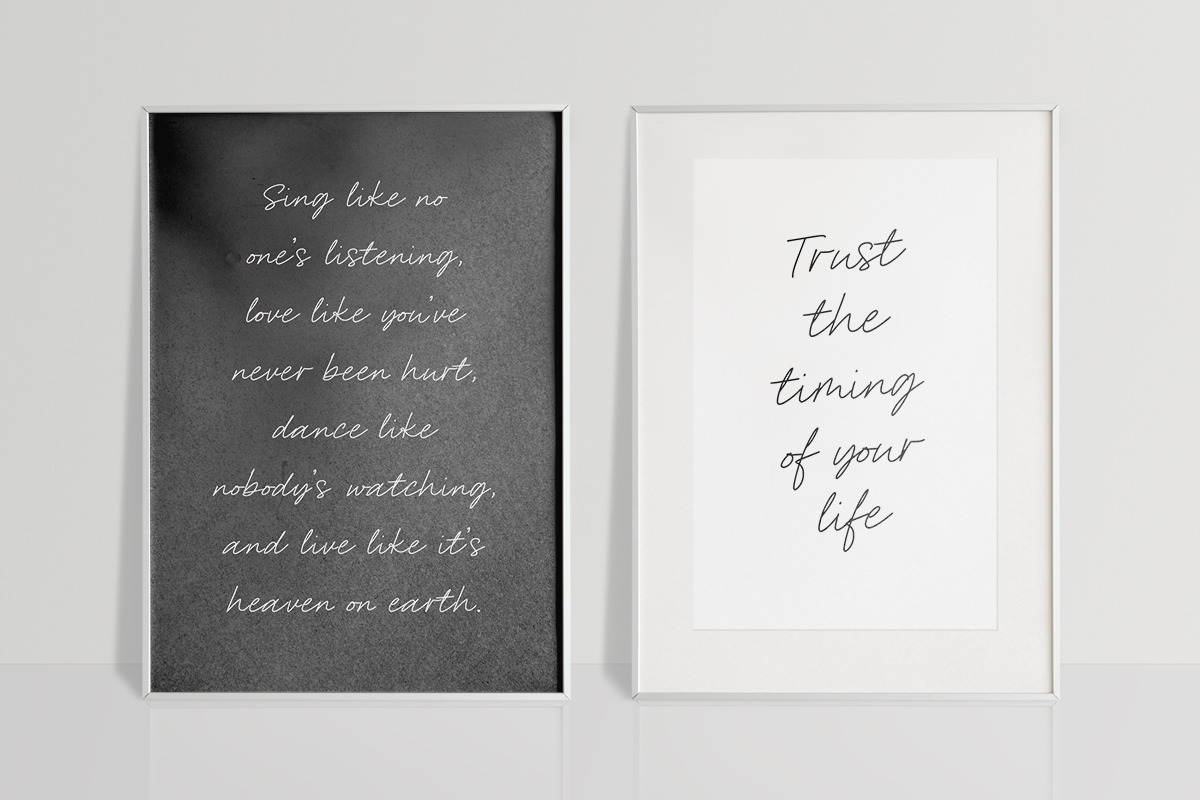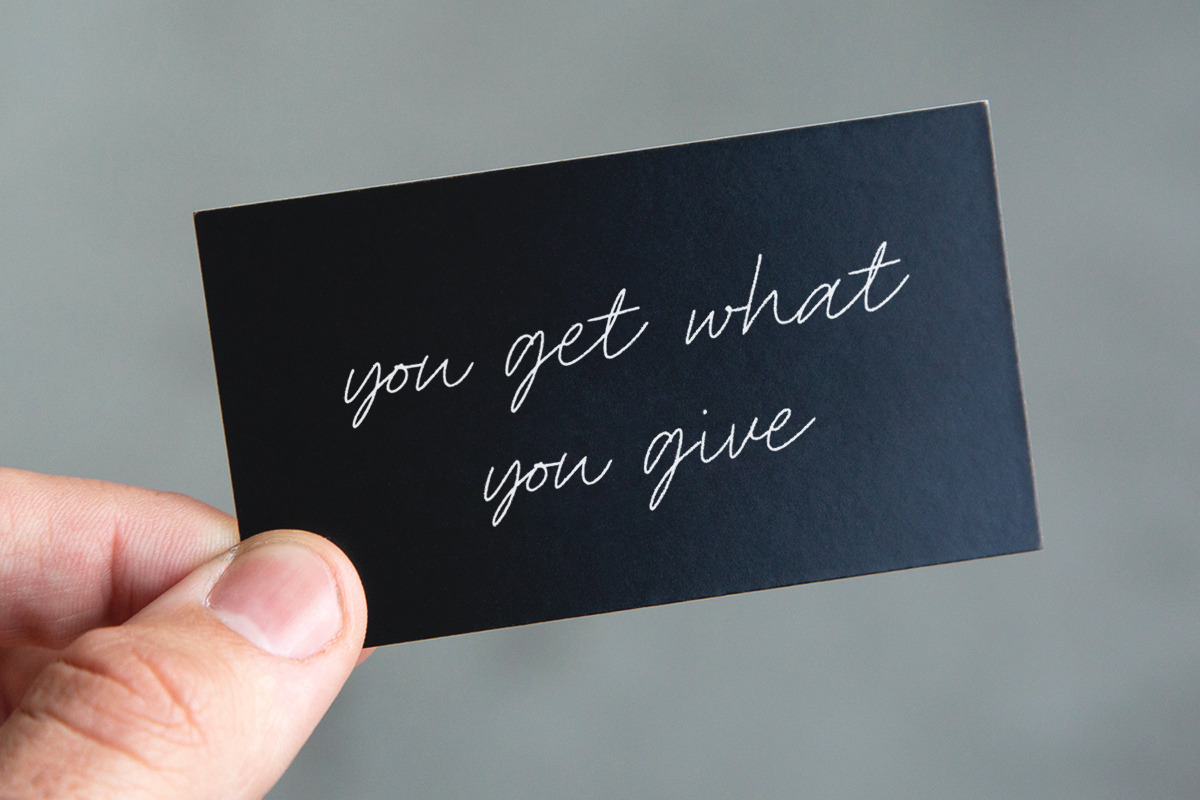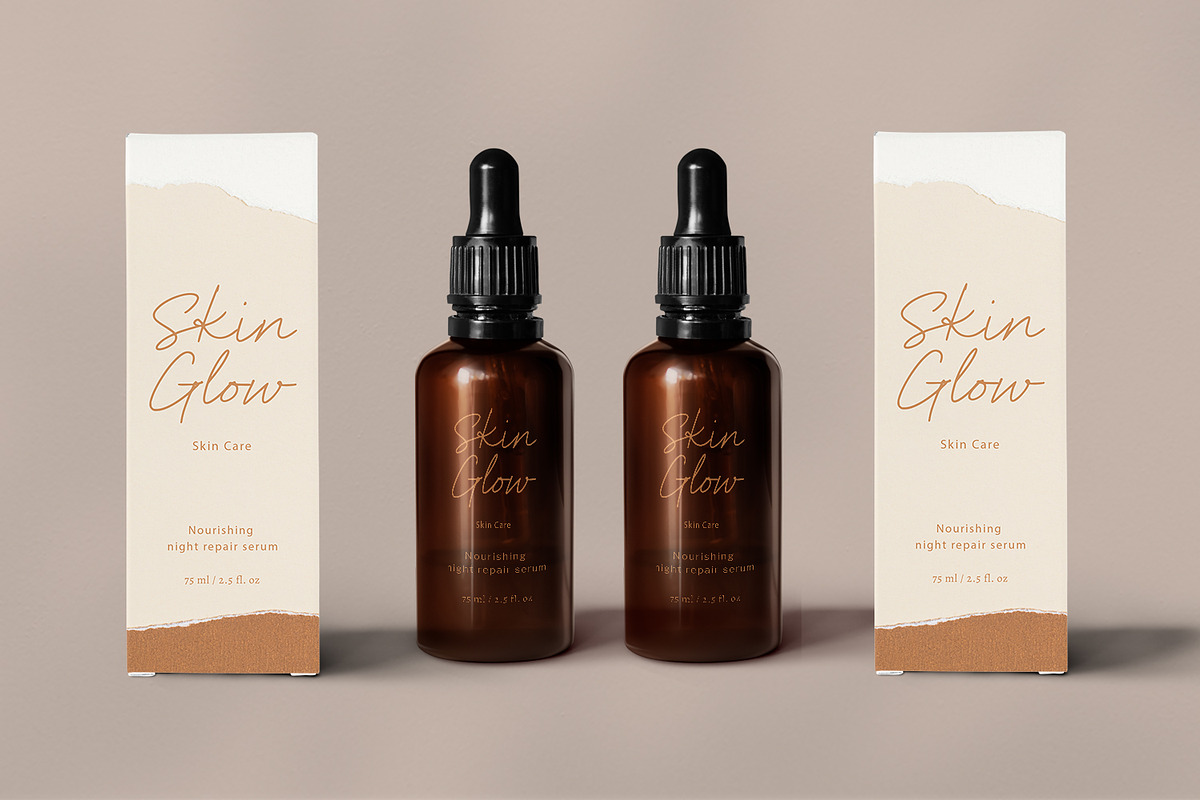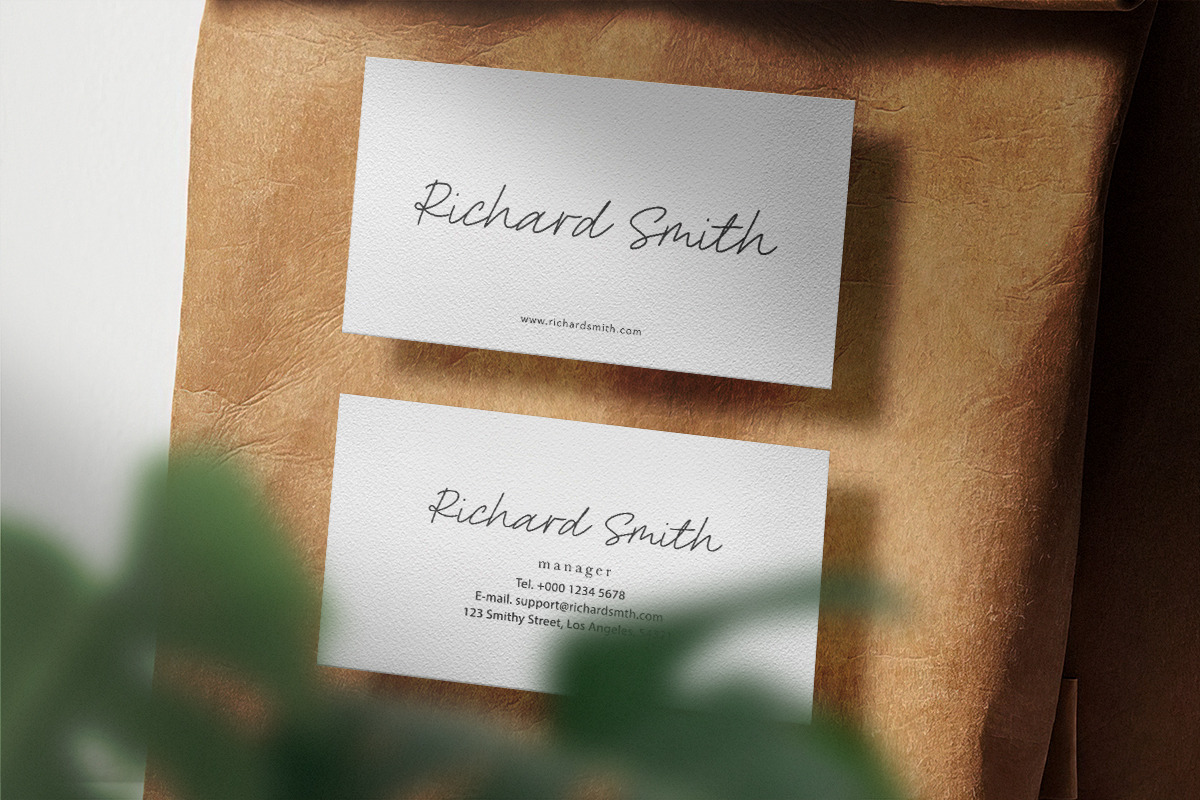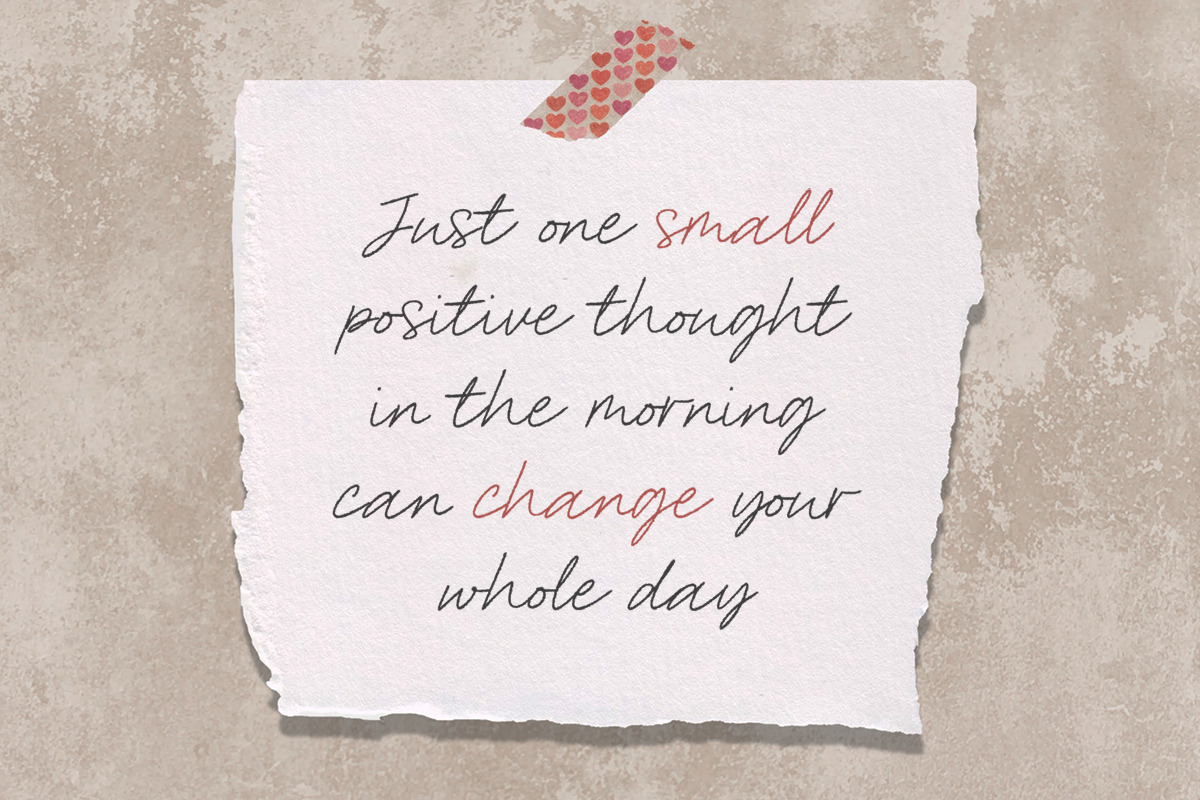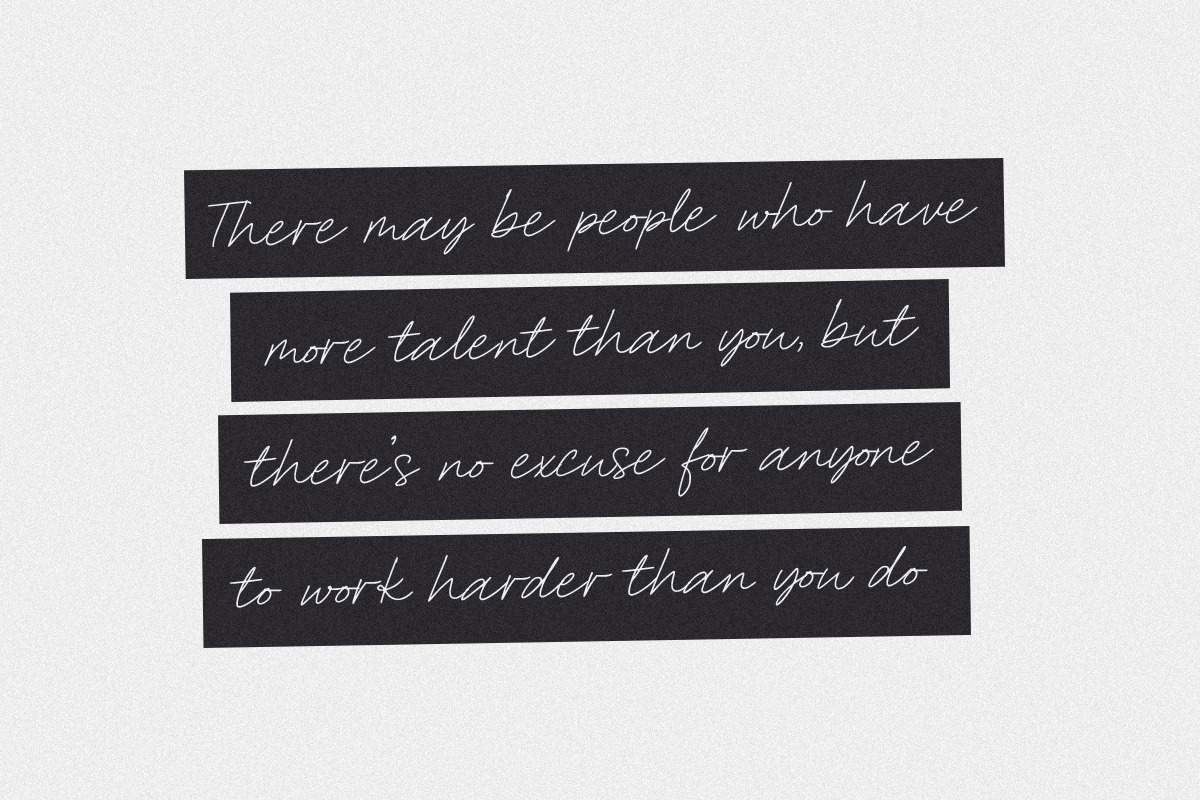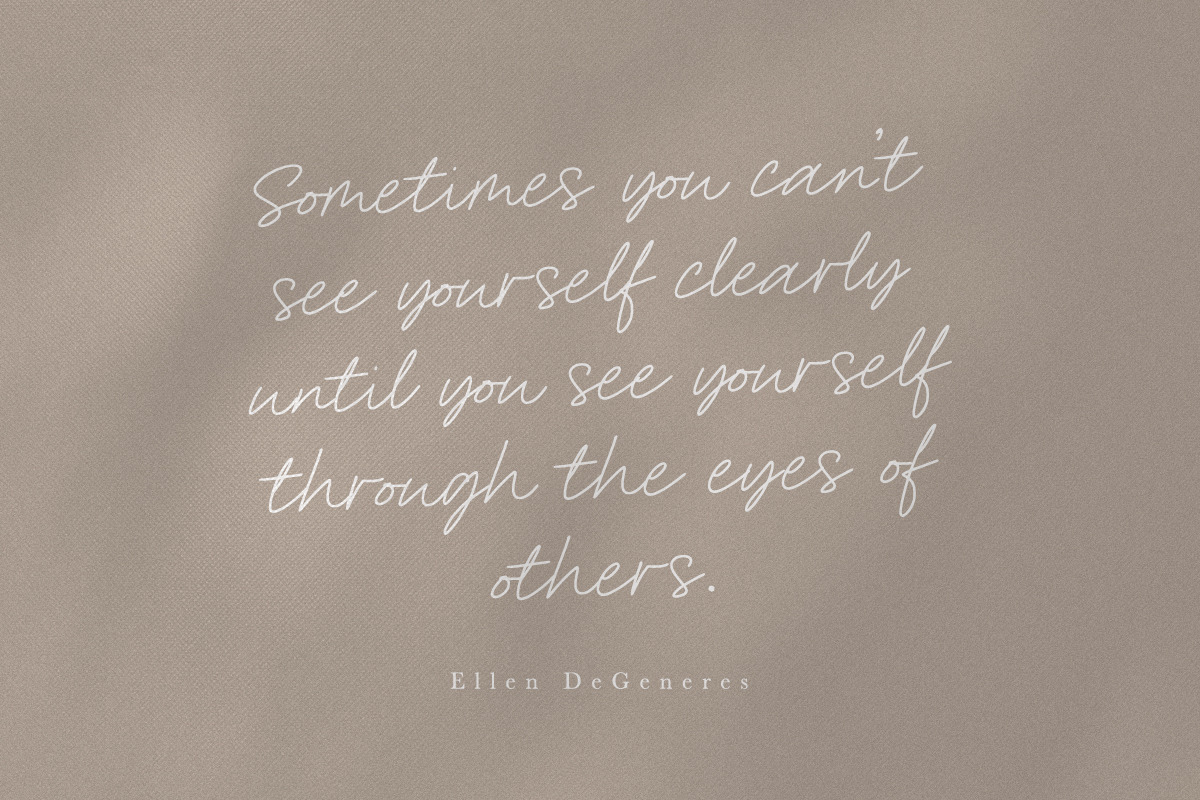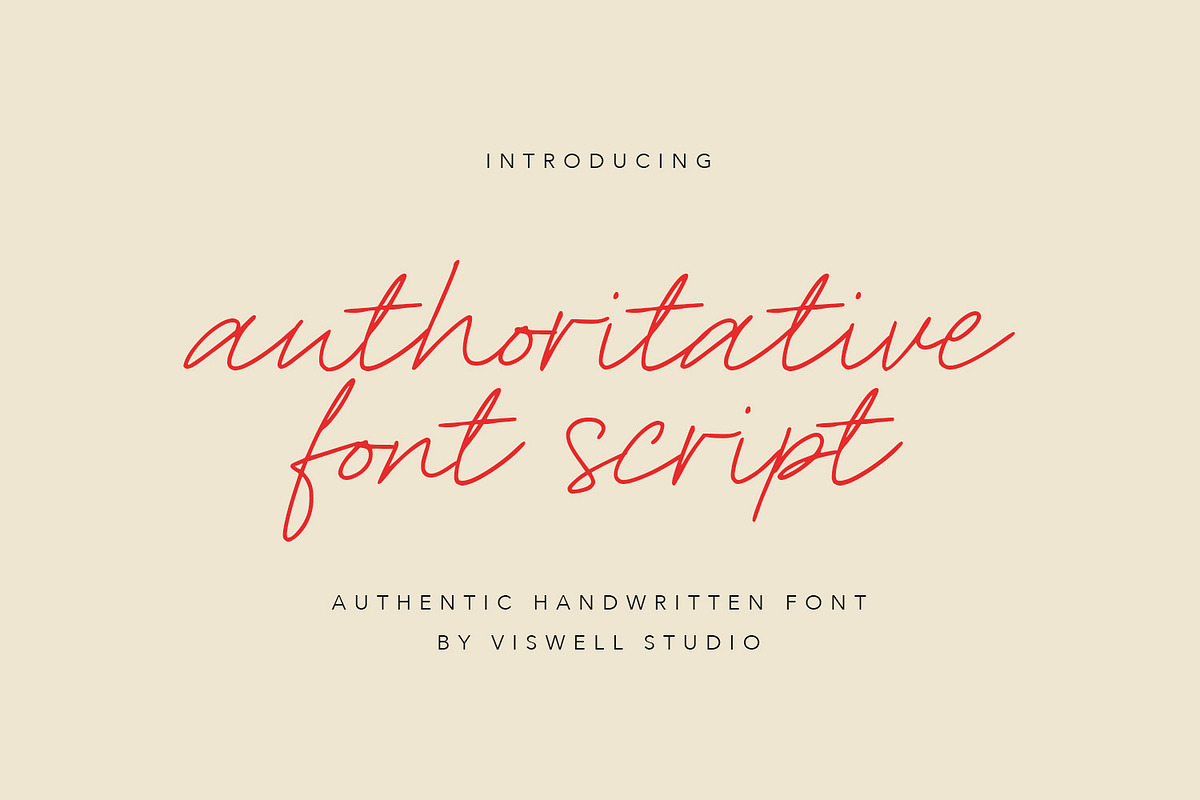
Authoritative - Handwritten Script
Introducing Authoritative, an natural handwritting script font, made with natural hand strokes which will be suitable for you to use for branding, quotes, logos, stationery, crafting and many more.